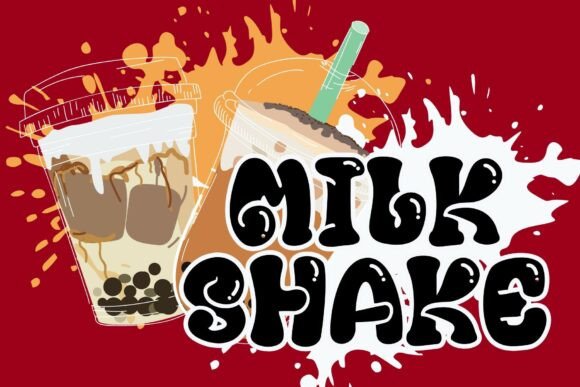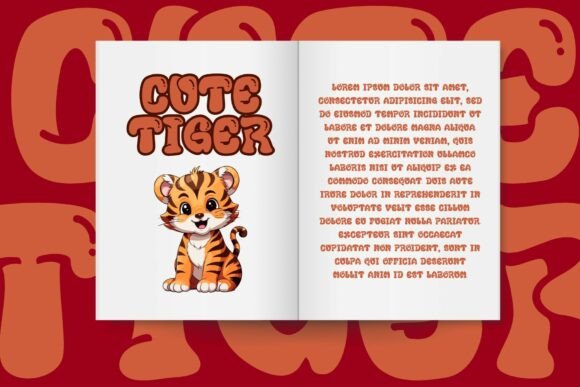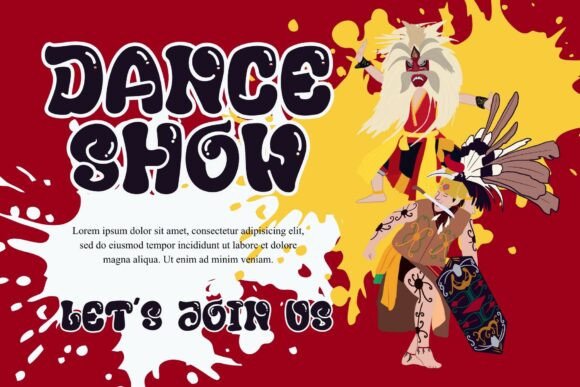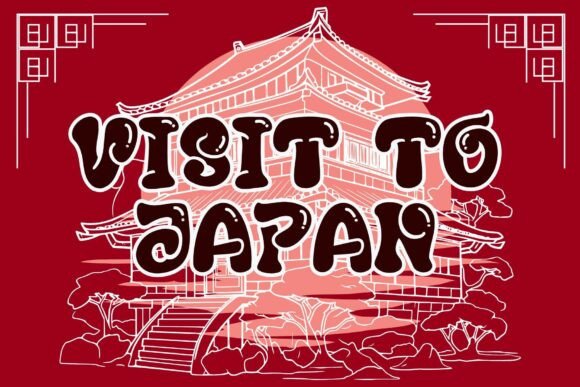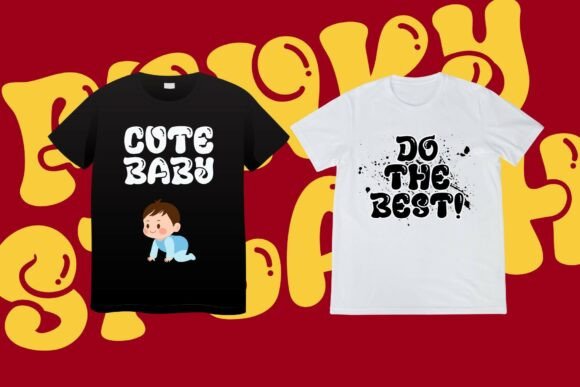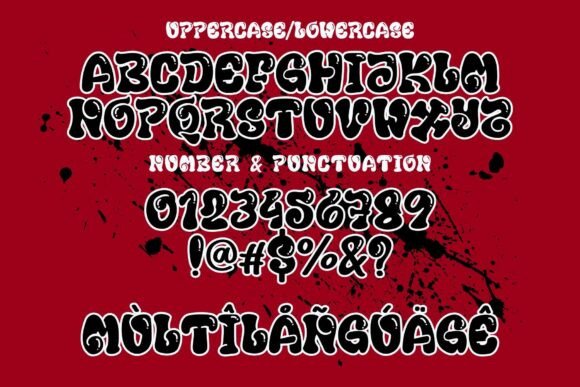
Introduction to Funky Splash Font
Funky Splash is a bold and expressive display font that stands out with its unique, playful, and fluid letterforms.
It brings a cheerful and creative vibe to any design project Perfect for casual, fun, or children-themed designs, as well as creative branding, posters, or any artwork that needs an energetic and lively touch.
Key Features of Funky Splash Font